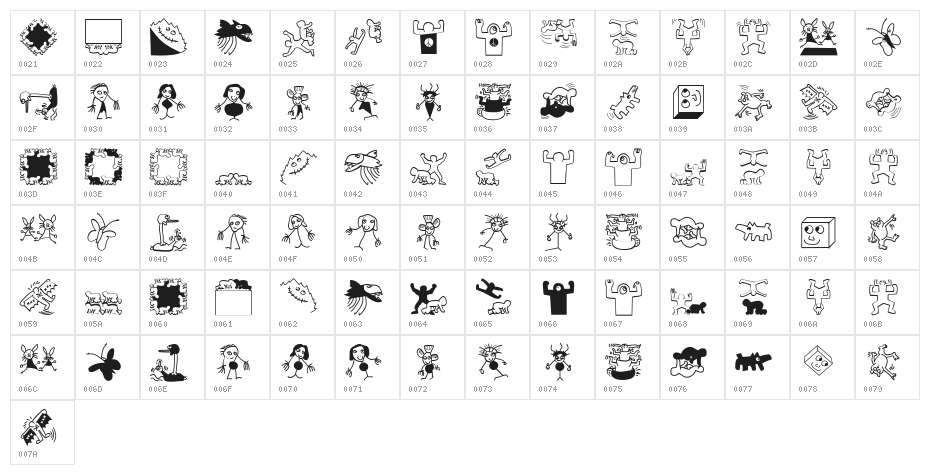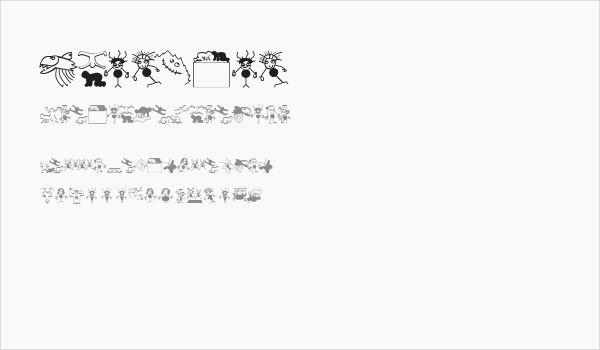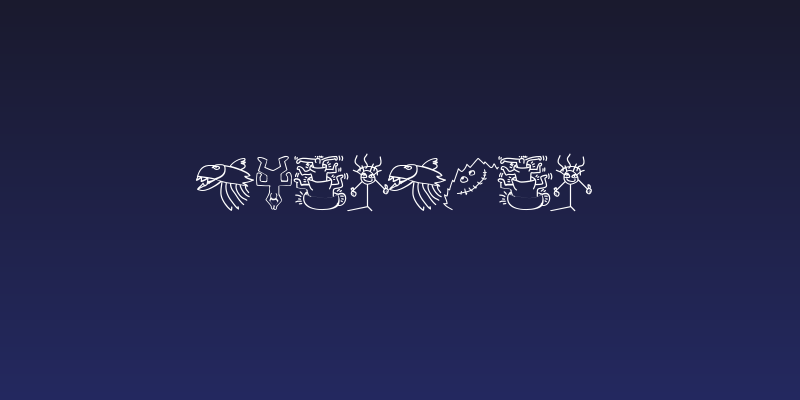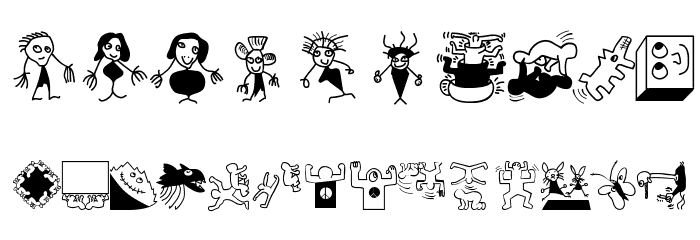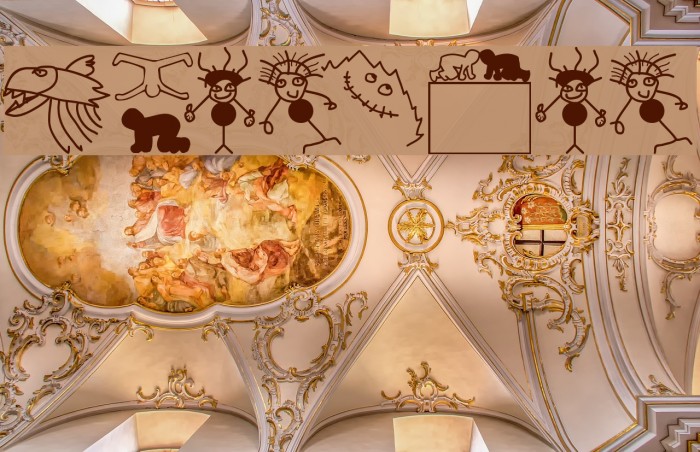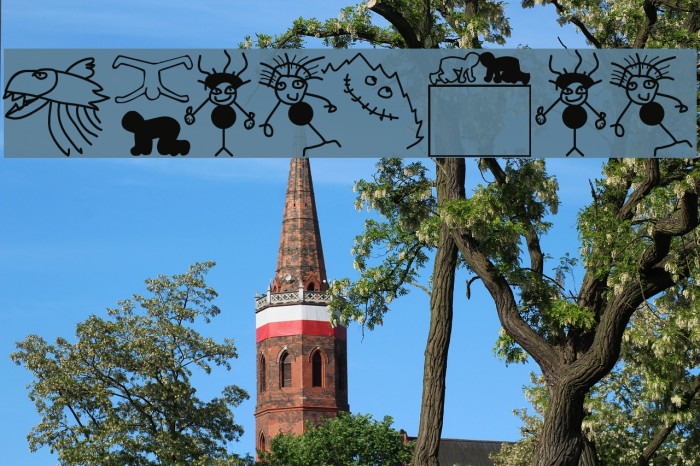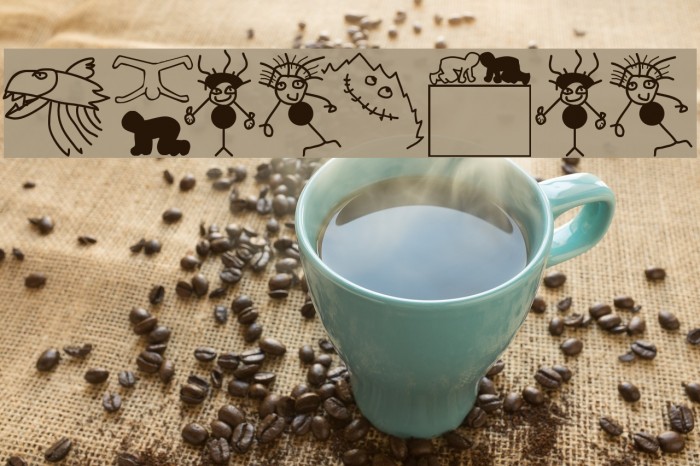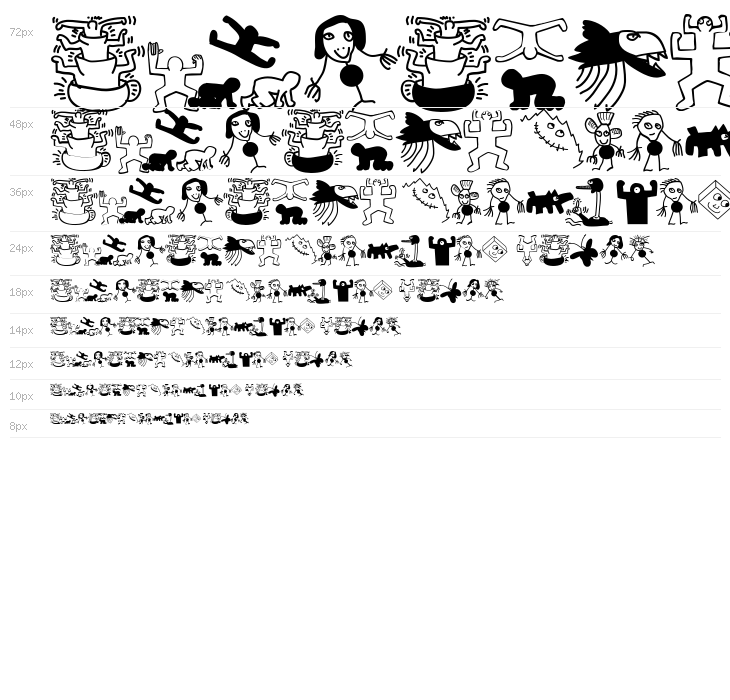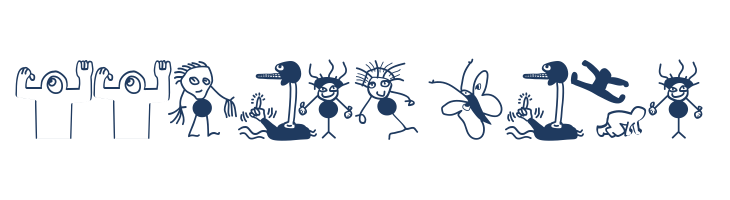
Bitsbats Font
Bitsbats Description
This is a playful and whimsical collection of pictographic symbols, each character resembling a unique and imaginative illustration. The designs range from abstract figures to quirky creatures, each with its own distinct personality. The characters are bold and expressive, with varying line thicknesses that add depth and interest. The overall style is highly decorative and artistic, making it suitable for creative projects that require a touch of humor and originality. The characters are not uniform in size or shape, contributing to a dynamic and lively appearance.
| Use Case | Logos, Artistic projects, Children's books |
| Proposed Projects | Ideal for creative projects such as children's books, playful branding, artistic posters, or any design that benefits from a touch of whimsy and originality. |